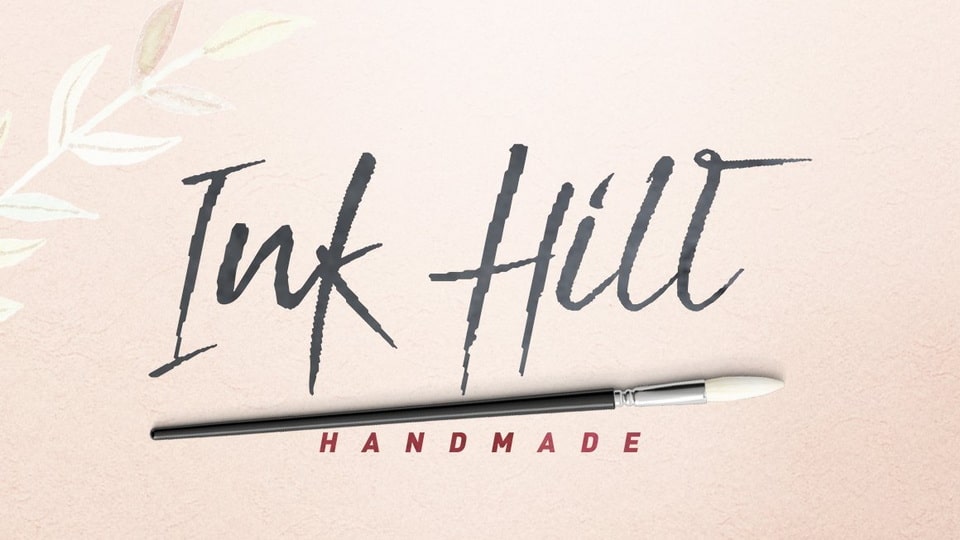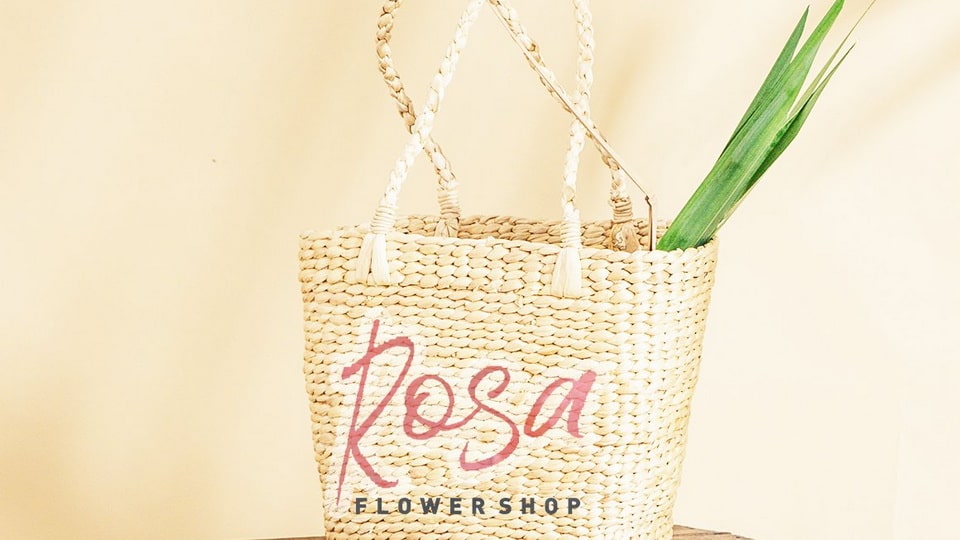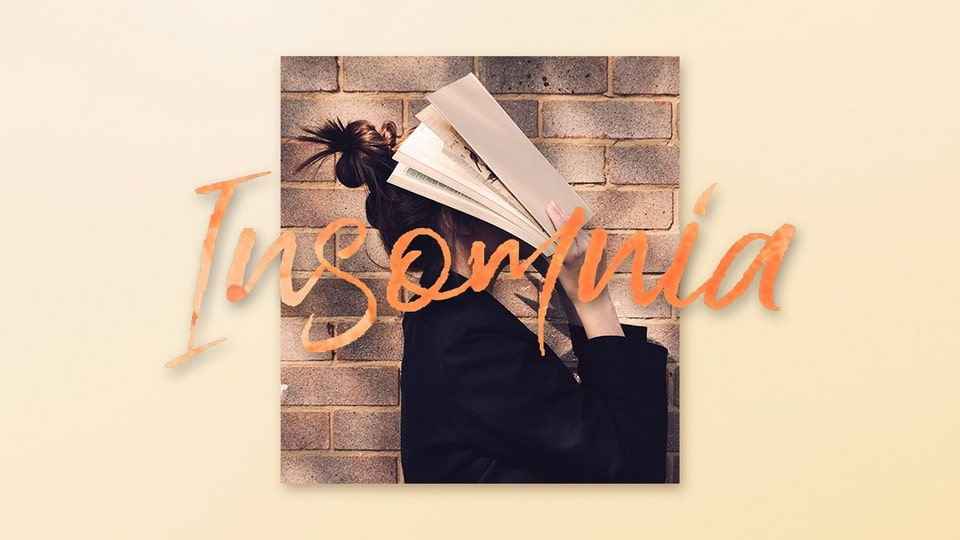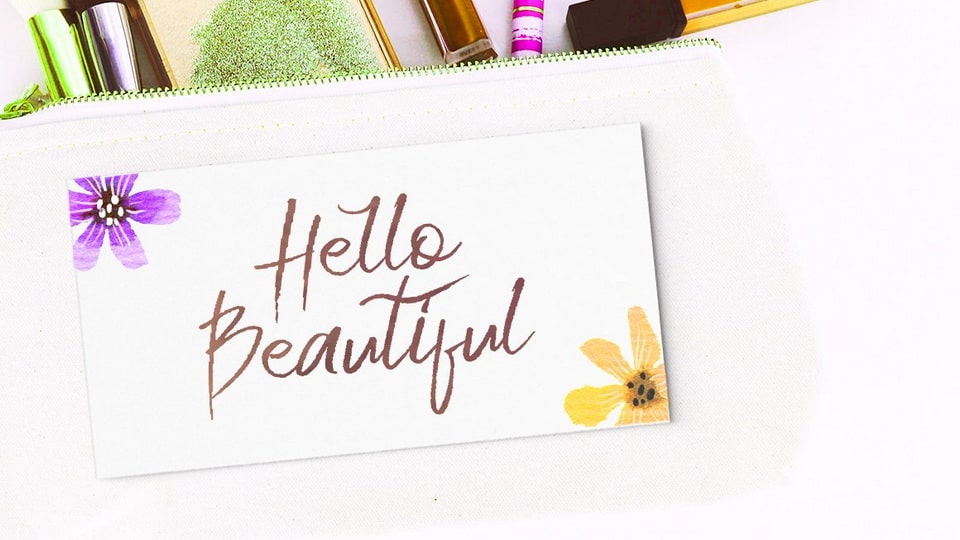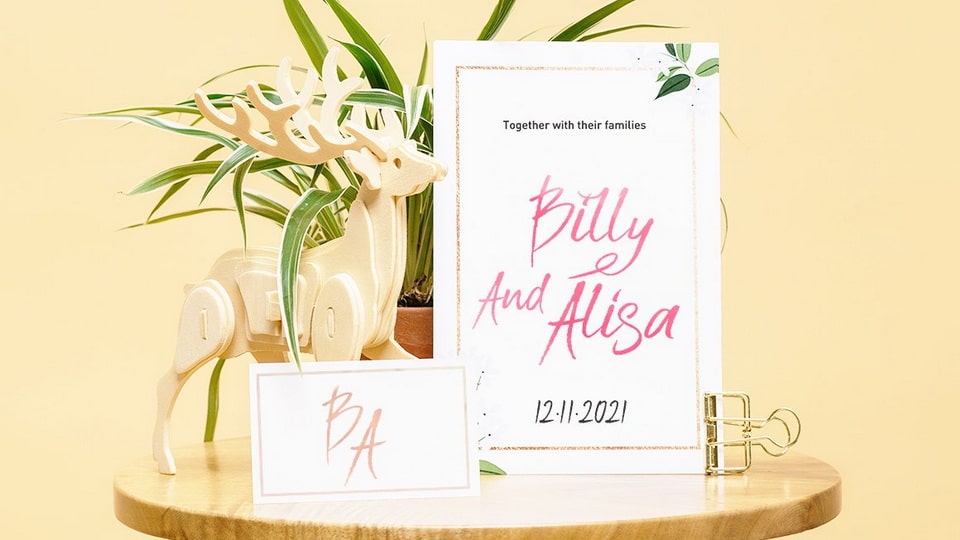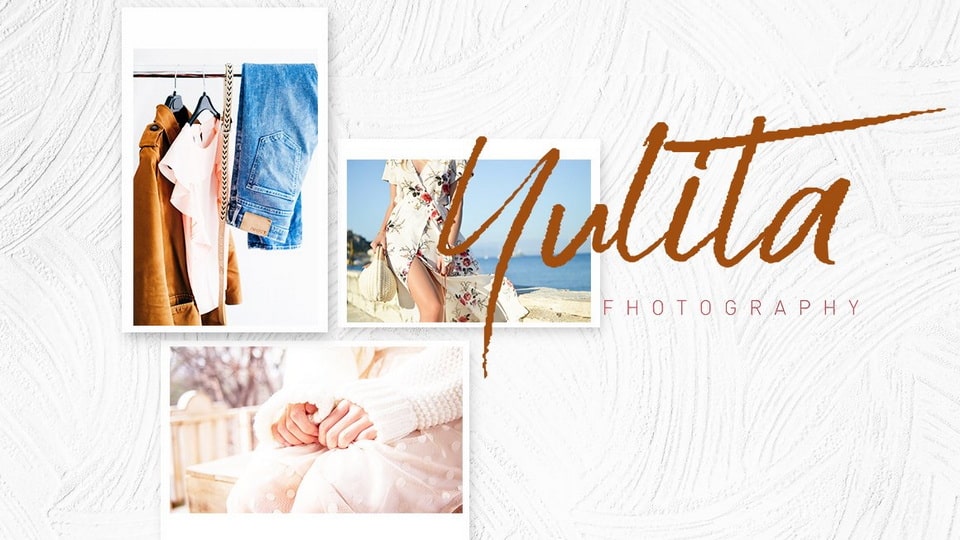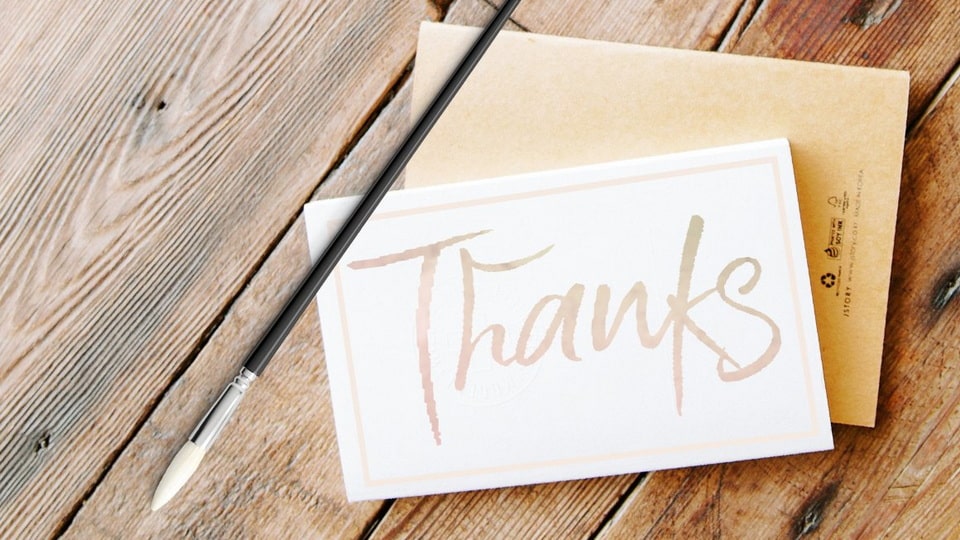
Ink Hill is a modern handwritten script. It’s easy to use and has great readability. Dynamic and a little bit quirky, this font is the perfect fit for all of your logos, branding, social media, and crafty DIY projects.